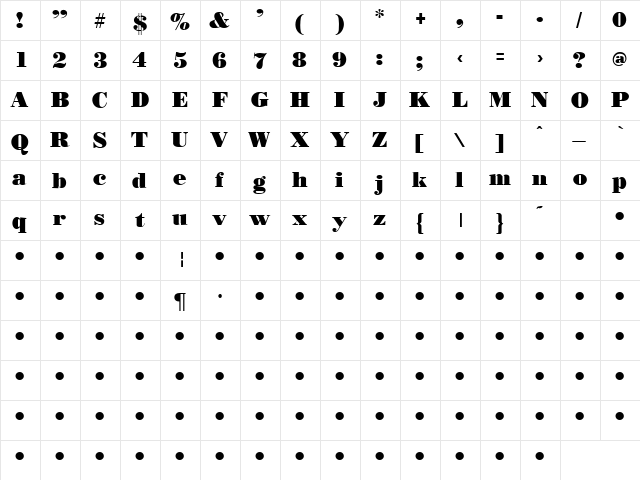
Marooned 6 Regular Font Preview
Marooned 6 Regular
Marooned 6 Regular Font Details
Design Context for Marooned 6 Typeface
Marooned 6 is a composed and adaptable typeface that performs quietly and consistently across a wide range of design contexts.